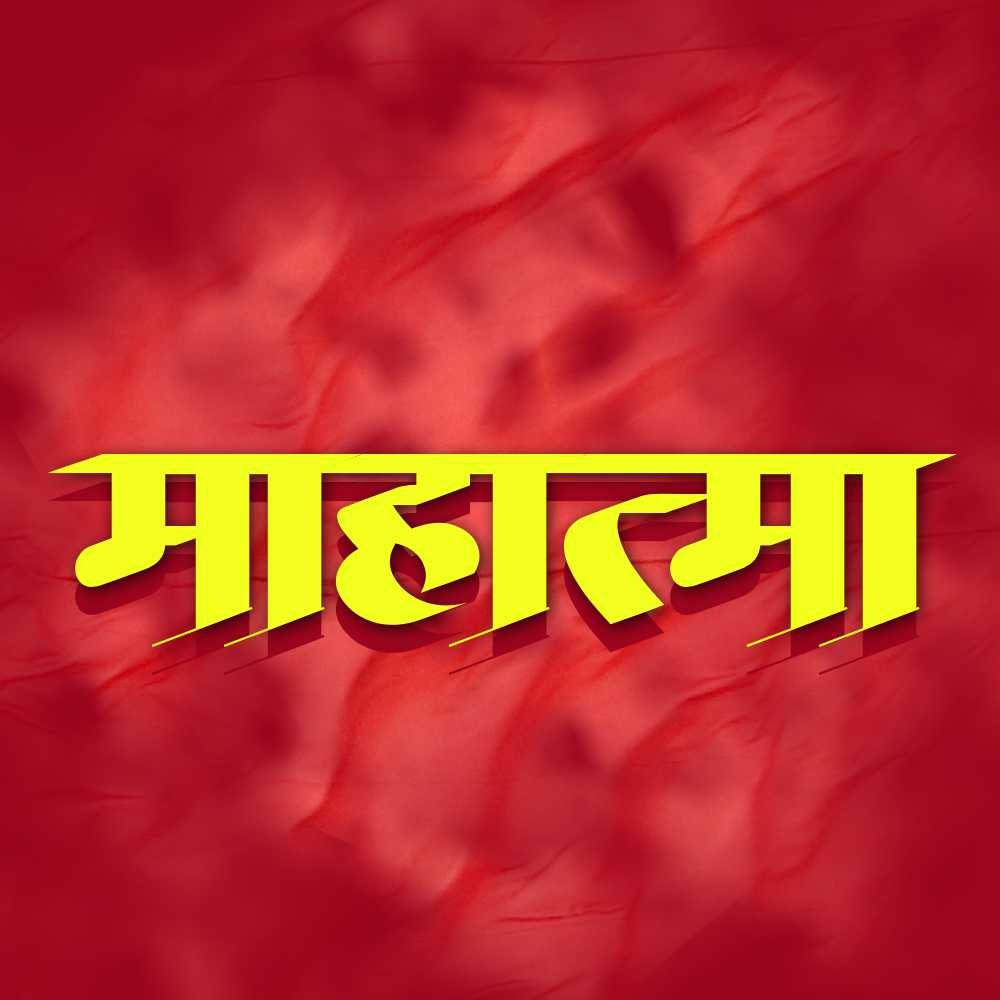
AMS Calligraphy 6
Add a touch of flair to your designs with AMS Calligraphy 6, a captivating font that showcases bold and expressive letterforms. Its dramatic flourishes and stylish swashes make it perfect for crafting eye-catching headlines and designing impactful social media graphics.
Add a touch of flair to your designs with AMS Calligraphy 6, a captivating font that showcases bold and expressive letterforms. Its dramatic flourishes and stylish swashes make it perfect for crafting eye-catching headlines and designing impactful social media graphics. This calligraphy font combines elegance with functionality, making it perfect for various design applications.
AMS Calligraphy 6 is a professionally crafted calligraphy typeface that brings clarity and style to your projects. Designed with attention to detail, it supports hindi and marathi characters flawlessly.
Whether you're working on invitations, logos, posters, or other creative projects, AMS Calligraphy 6 delivers consistent performance across both digital and print media. This carefully designed typeface ensures readability and visual appeal in all your design work.
AMS Calligraphy 6 excels in various design scenarios. Here are the most suitable applications:
About AMS Calligraphy 6 Typography Style
AMS Calligraphy 6 is a professionally crafted calligraphy font that exemplifies modern Hindi typography design. This free font is perfect for designers seeking professional branding and logo design projects.
Available in 1 weight and supporting hindi, marathi scripts, AMS Calligraphy 6 offers exceptional versatility for both digital and print media. Whether you're working on invitations, logos, posters, this carefully designed typeface ensures consistent quality and professional results across all your typography projects.